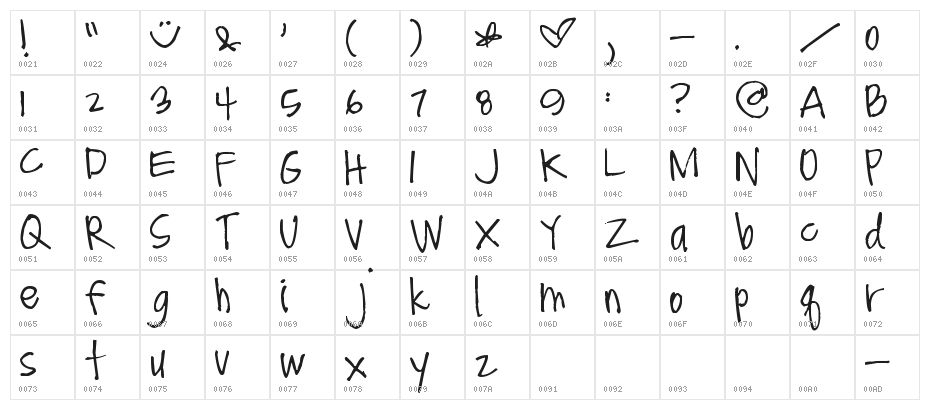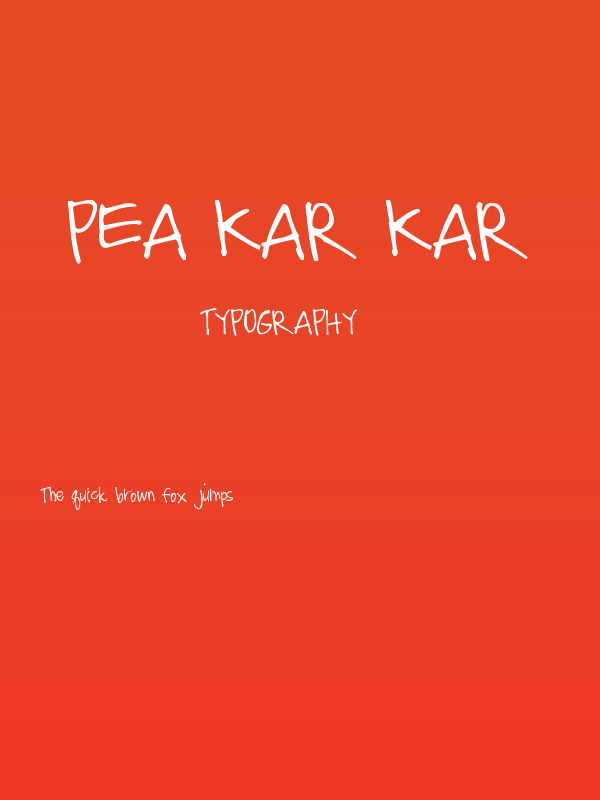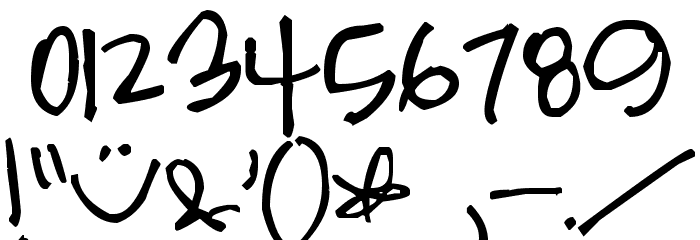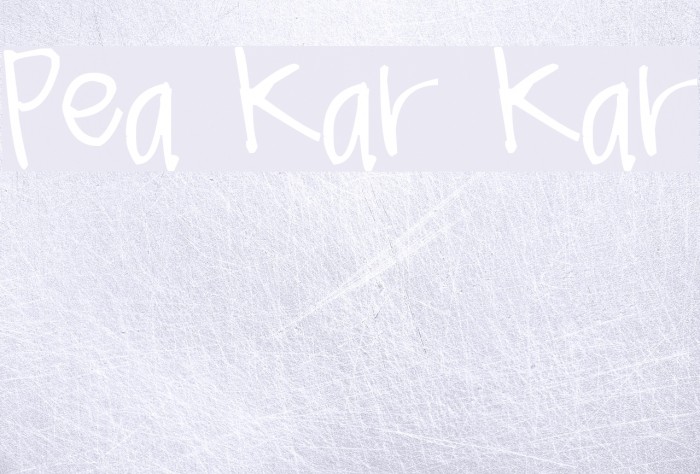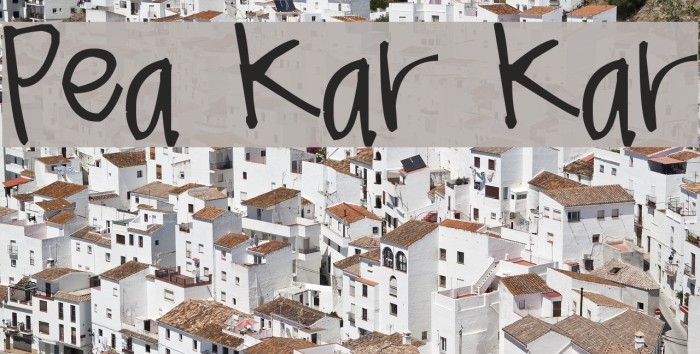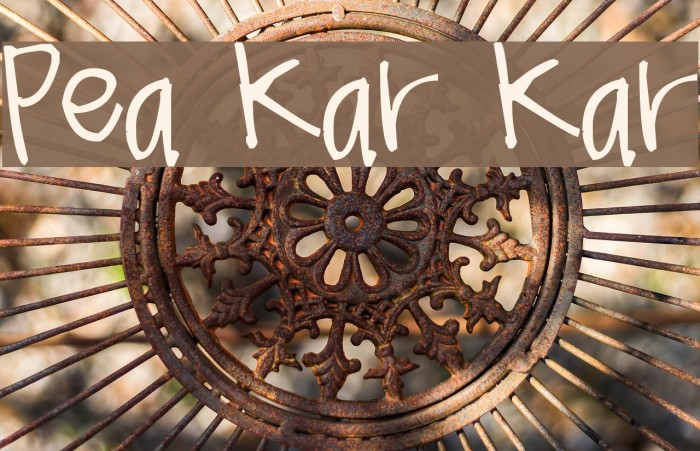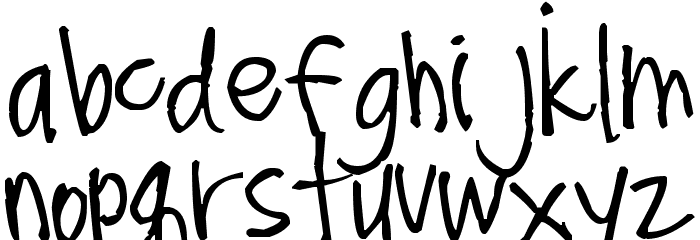
Pea Kar Kar Font
Pea Kar Kar Description
This font features a playful and casual handwritten style, characterized by its uneven strokes and organic flow. The letters have a natural, freeform appearance, giving it a personal and informal touch. The uppercase and lowercase letters maintain a consistent style, with slightly exaggerated curves and loops that add to its charm. Numbers and special characters follow the same whimsical design, making it versatile for various creative projects. The overall look is approachable and friendly, ideal for conveying a sense of warmth and personality.
PEA-KAR-KAR UPPERCASE
PEA-KAR-KAR LOWERCASE
PEA-KAR-KAR OTHER CHARS
| Use Case | Greeting cards, Personal notes, Creative branding |
| Proposed Projects | Ideal for greeting cards, personal notes, children's books, and creative branding projects. |